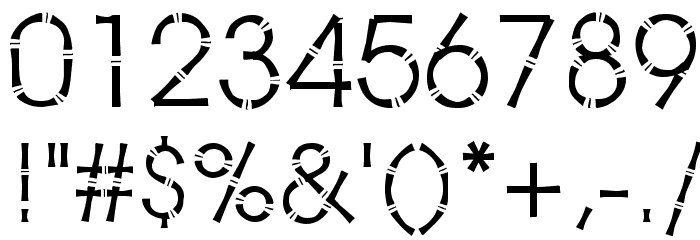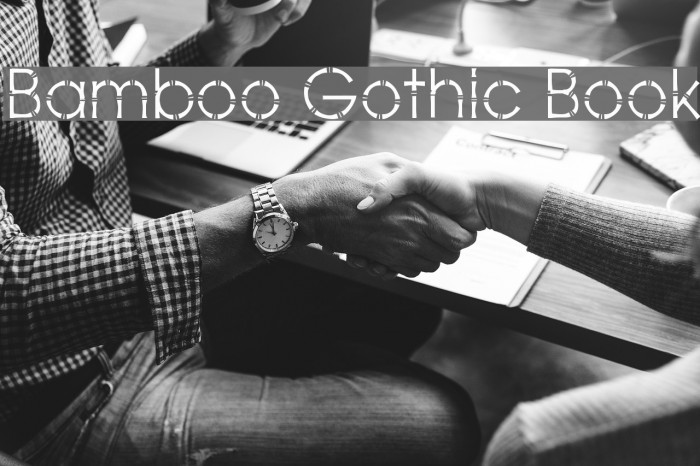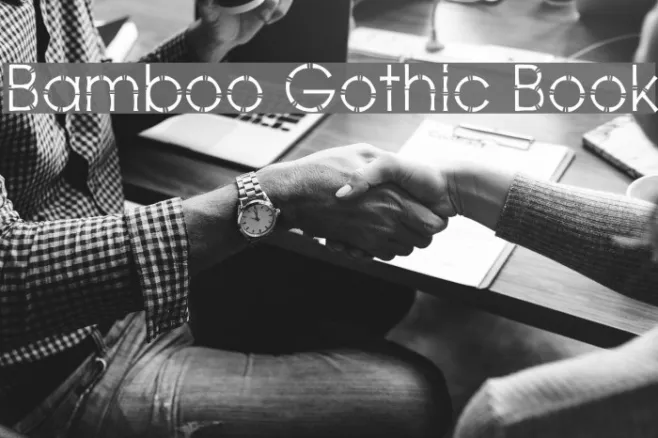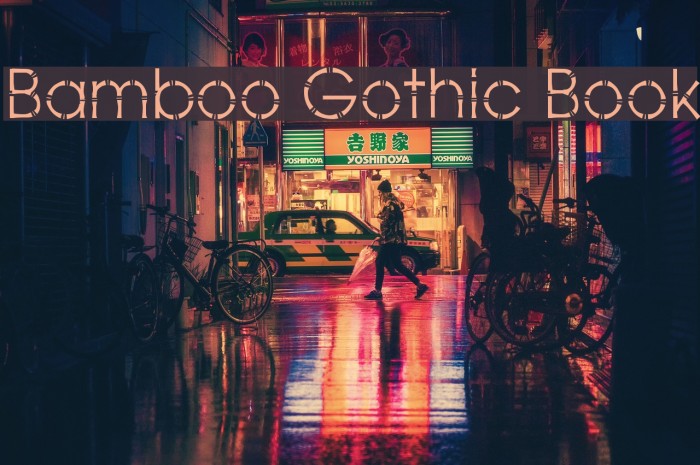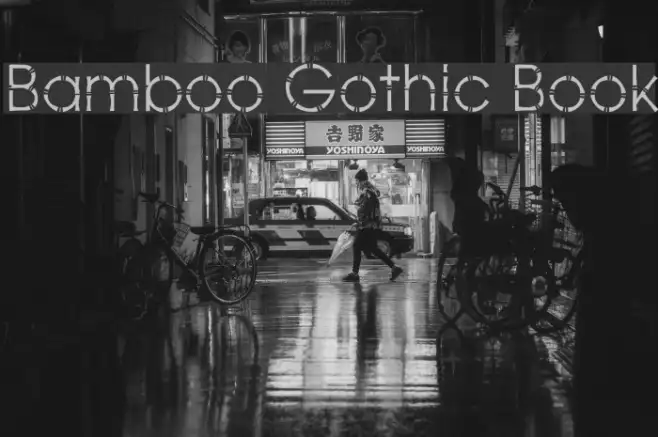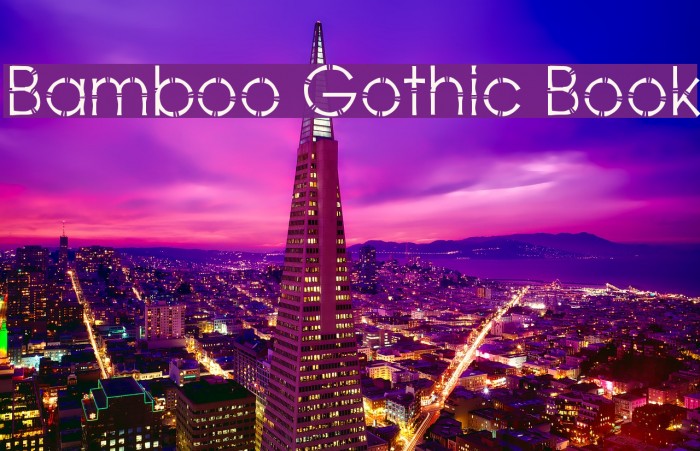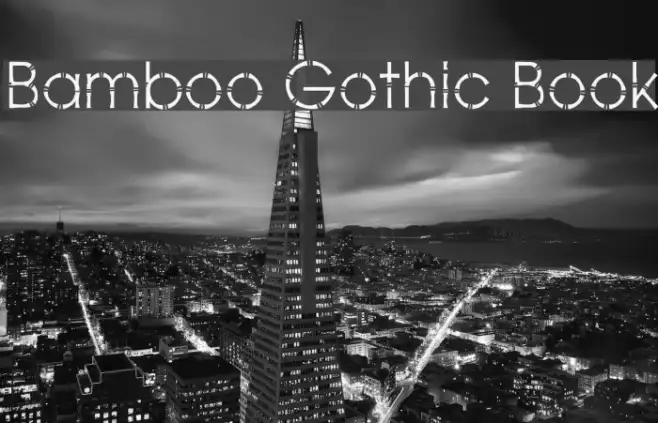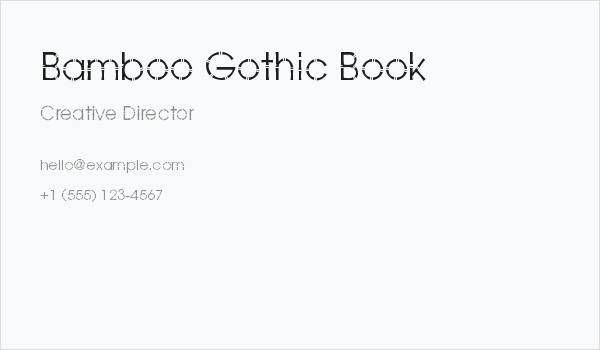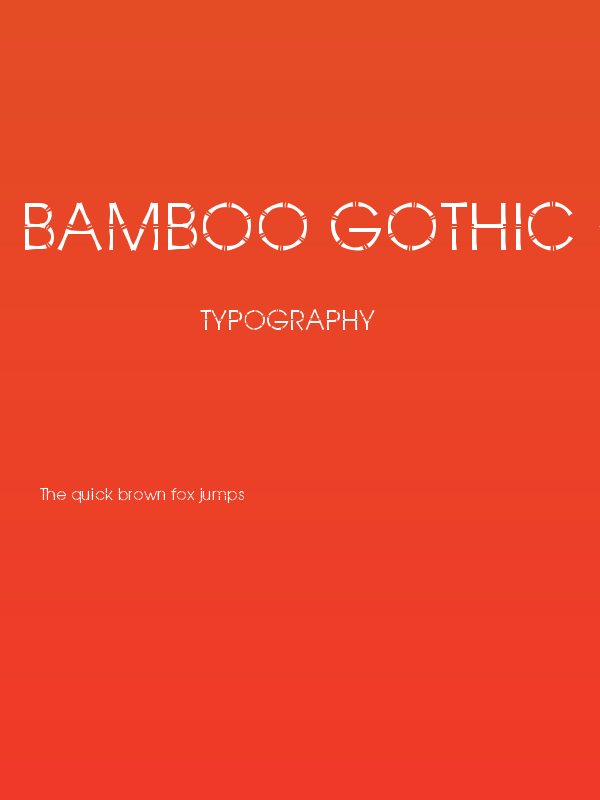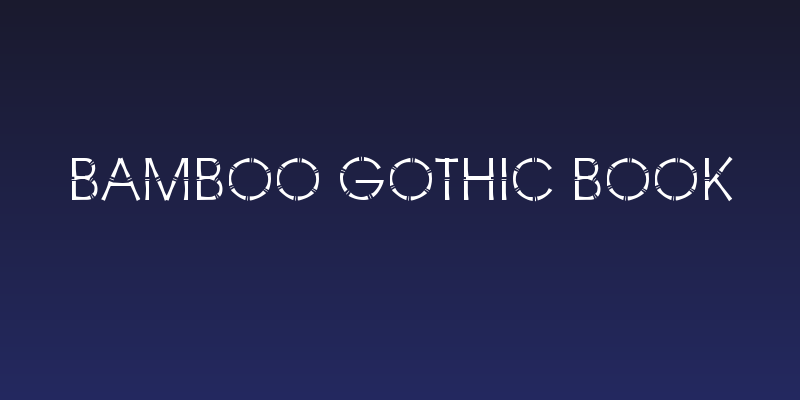
Bamboo Gothic Book Font
Bamboo Gothic Book Description
This font features a unique and striking design with a modern twist. The characters are constructed with a bamboo-like appearance, incorporating breaks and gaps that give it a distinctive, segmented look. The uppercase and lowercase letters maintain a consistent style, with clean lines and geometric shapes. Numbers and special characters follow the same design principles, ensuring uniformity across all glyphs. The font's aesthetic is both decorative and contemporary, making it suitable for creative projects that require a bold statement.
| Proposed Projects | Ideal for branding, posters, and artistic projects that require a bold and creative touch. |